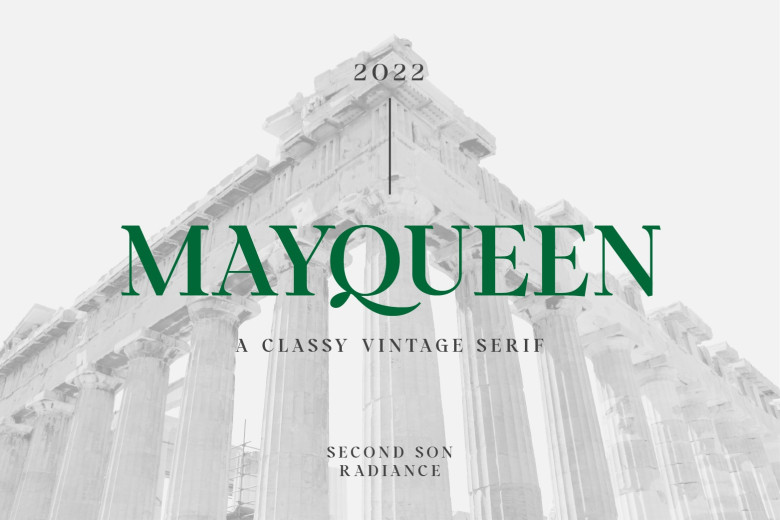
Mayqueen Font
Mayqueen is a classy and vintage serif font with a beautiful feel of elegance and charm.​​​​​​​ It has delicious sensibility and comes with various romantic ligature to make it more beautiful.  This font is suitable for logo, branding, magazines, cosmetic brands, fashion posters, boutique, stationery, promotion, or a unique advertisement for special events, woman’s magazine, cosmetic brands, luxury brands, art gallery branding, art quotes, home decor, book/cover titles, and much much more! TTF and OTF files are also included. This font helps to finalize the design of your upcoming projects quickly and efficiently. Moreover, support Multilingual!
Mayqueen Serif Font